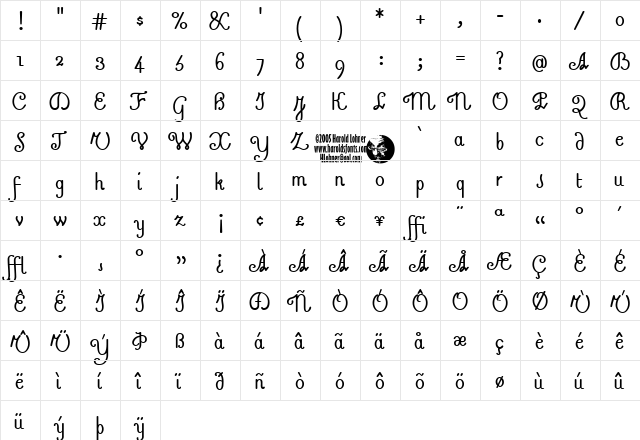
Valentin Regular
Design Context for Valentin Typeface
Valentin is a composed and adaptable typeface that performs quietly and consistently across a wide range of design contexts.